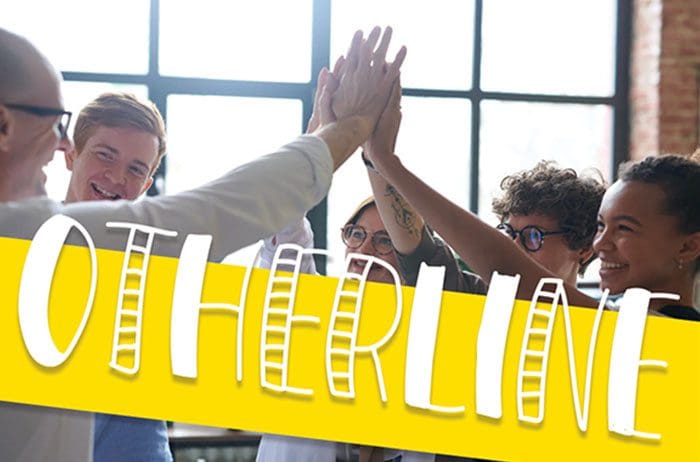
Free Otherline Display Font
Otherline Display Font
Free Otherline display font embodies fun, quirkiness and authenticity. This enchanting display font will turn any creative idea into a true standout. Designed this font by Andika Studio. You can also search more freeĀ Display Fonts.